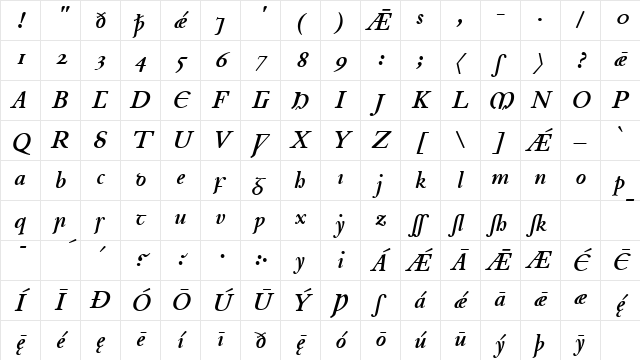
Junius BoldItalic Free Font
Junius BoldItalic
Junius is a composed and adaptable typeface that performs quietly and consistently across a wide range of design contexts. The slanted form adds forward momentum and visual energy. Its bold stroke weight gives it real presence on the page.